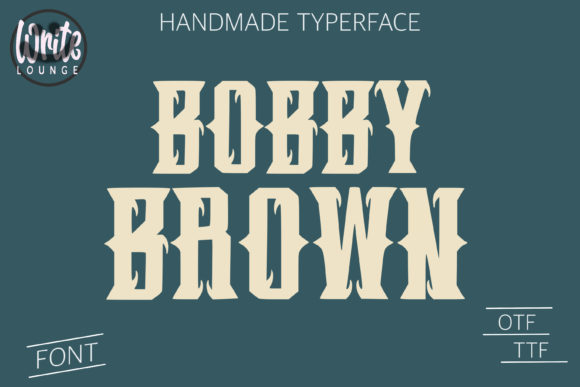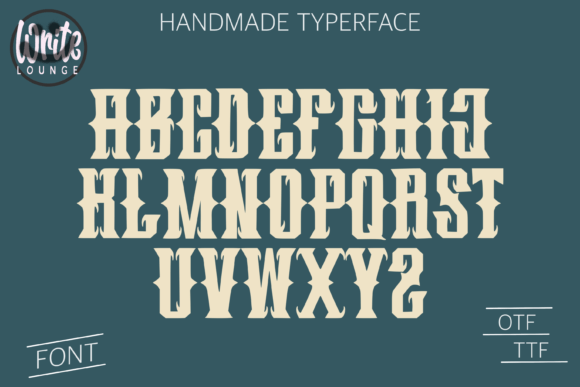
Bobby Brown Font: A Timeless Retro Touch
Have you ever stumbled upon an old family photo and suddenly found yourself lost in a sea of nostalgia? The faded colors, the worn edges, and the unmistakable charm of a bygone era – it’s a feeling that’s hard to shake. As designers, we’re always on the lookout for ways to evoke that same sense of nostalgia in our work, and that’s where the Bobby Brown Font comes in.
This beautifully crafted serif font is a masterclass in vintage aesthetics, delivering a playful, laid-back vibe that’s perfect for adding a retro touch to any design project. Whether you’re working on a vintage-inspired advertisement, a retro-themed website, or simply want to add a bit of nostalgia to your logo, the Bobby Brown Font is the perfect tool for the job.
- Font Family: Bobby Brown
- Font Size: 7 weights, ranging from Light to Black
- Unique Characteristics: A bold, distressed font with a vintage feel, ideal for headlines, logos, and creative projects
Bobby Brown Font Review
Overall, I think the Bobby Brown font has some nice qualities, but it also has some limitations.
- The font has a unique and distinctive feel to it, which could be perfect for designers looking to add some personality to their projects.
- It’s a great choice for titles and headings, as it’s eye-catching and attention-grabbing.
- The font is available in a range of weights, which makes it versatile and easy to use in different design contexts.
- The font may be too bold or overpowering for some designs, which could make it difficult to read.
- The weight of the font can vary significantly between different characters, which may make it hard to achieve consistent typography.
- The font may not be suitable for body text, as it can be quite difficult to read in long blocks of text.
I would say that the Bobby Brown font is a great choice for designers who want to add some flair to their projects, but it’s not a font that I would use for everyday body text. It’s best suited for titles, headings, and other design elements where you want to make a statement.
The Bobby Brown font is ideal for creating eye-catching headlines, posters, and social media graphics. It’s also suitable for use in music and entertainment branding, where a bold and playful font can help convey the artist’s personality.
To get the most out of the Bobby Brown font, use it sparingly and in bold, eye-catching ways. Pair it with clean, simple backgrounds to let the font take center stage. Experiment with different font sizes and styles to create visual interest and emphasis.
What is the character set and language support for the Bobby Brown Font?
The Bobby Brown Font supports a wide range of languages, including Latin, Cyrillic, and Greek scripts. It also includes a comprehensive character set, including punctuation, numerals, and symbols. The font is suitable for use in various languages and applications, from body text to display typography.